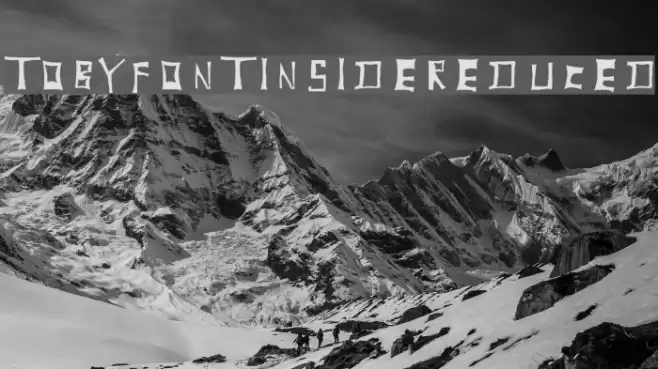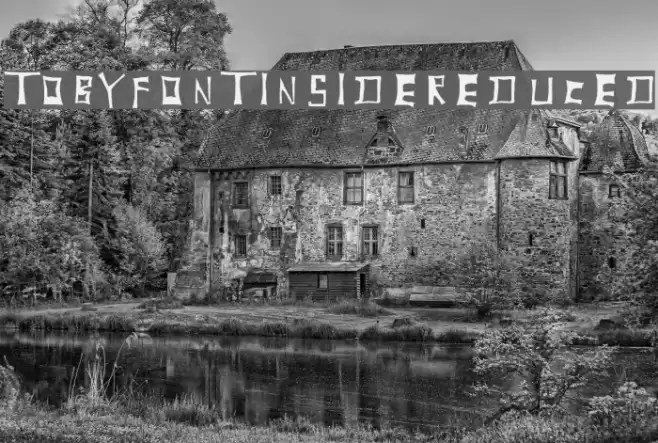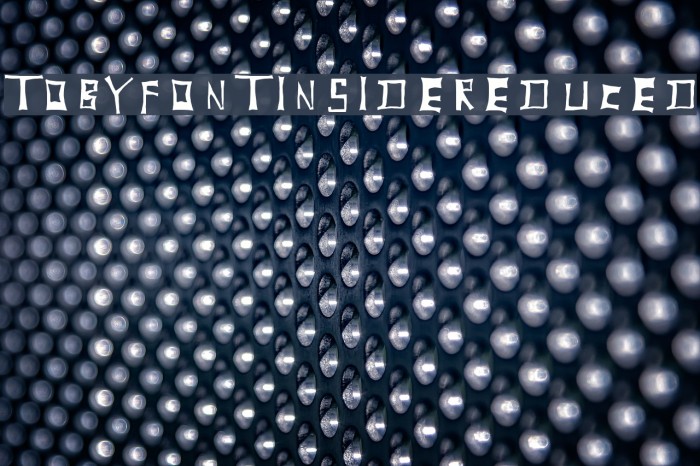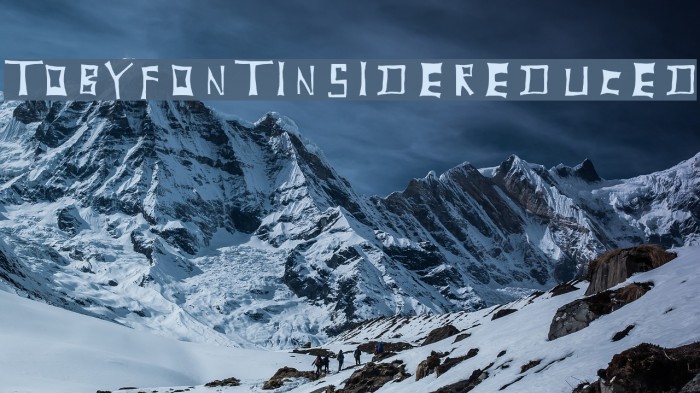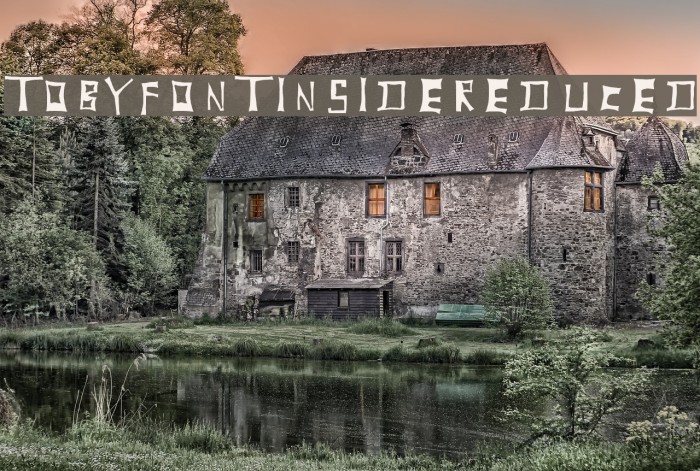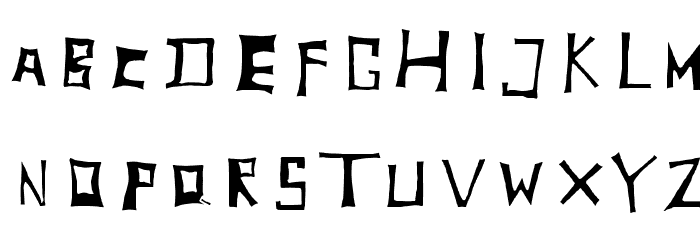
TobyFont-Insidereduced Font
TobyFont-Insidereduced Description
This font features a distinctive, edgy style with sharp angles and irregular strokes, giving it a hand-drawn, artistic appearance. The uppercase and lowercase letters maintain a consistent height, while the numbers and special characters follow the same angular theme. The overall design is bold and eye-catching, making it suitable for creative and unconventional projects. The characters have a slightly uneven baseline, adding to the font's unique charm and dynamic feel. This font is ideal for projects that require a standout, artistic touch.
A bold, edgy font with sharp angles and a hand-drawn appearance from Uncategorized fonts.
- Proposed Projects: Ideal for album covers, posters, branding for edgy or artistic products, and creative event invitations.